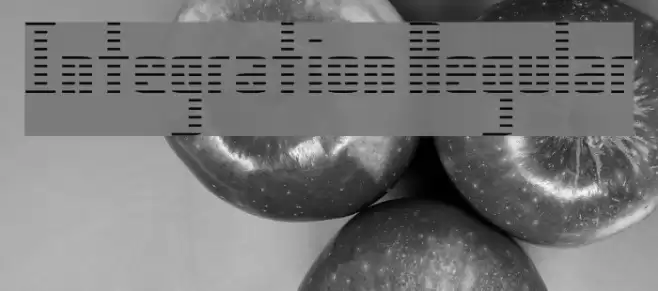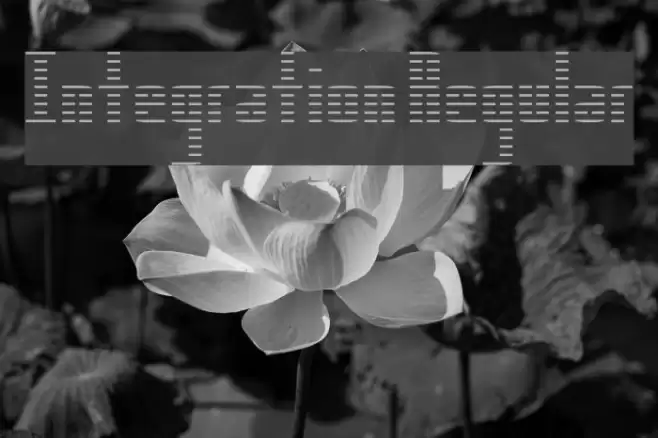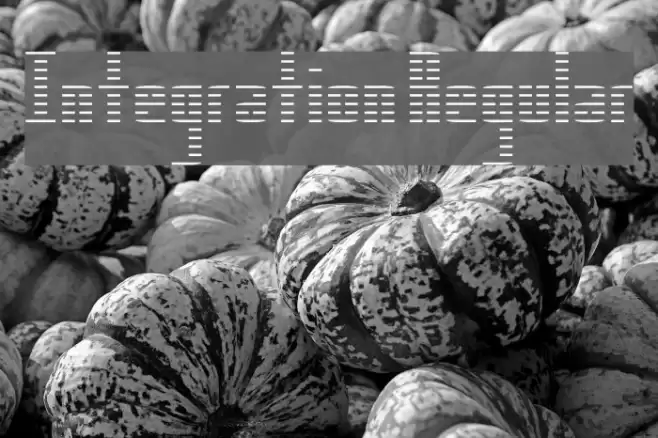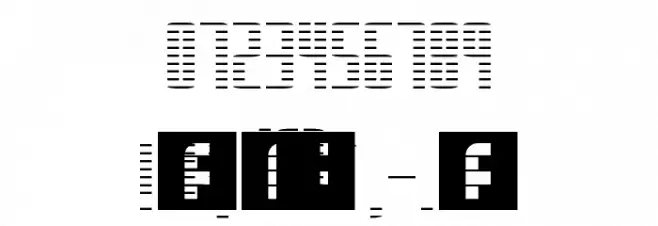
Integration Regular Font
Integration Regular Description
This font features a unique, segmented design that mimics the appearance of digital displays or dot matrix screens. Each character is composed of horizontal lines, creating a futuristic and technological aesthetic. The uppercase and lowercase letters maintain a consistent style, with the lowercase being slightly smaller in height. Numbers and special characters follow the same segmented pattern, ensuring uniformity across all glyphs. The font's distinct style makes it stand out, ideal for projects that require a modern, digital look.
A segmented, digital-style font with a futuristic aesthetic from Uncategorized fonts.
- Proposed Projects: Ideal for digital displays, tech-themed designs, video game interfaces, and futuristic branding.